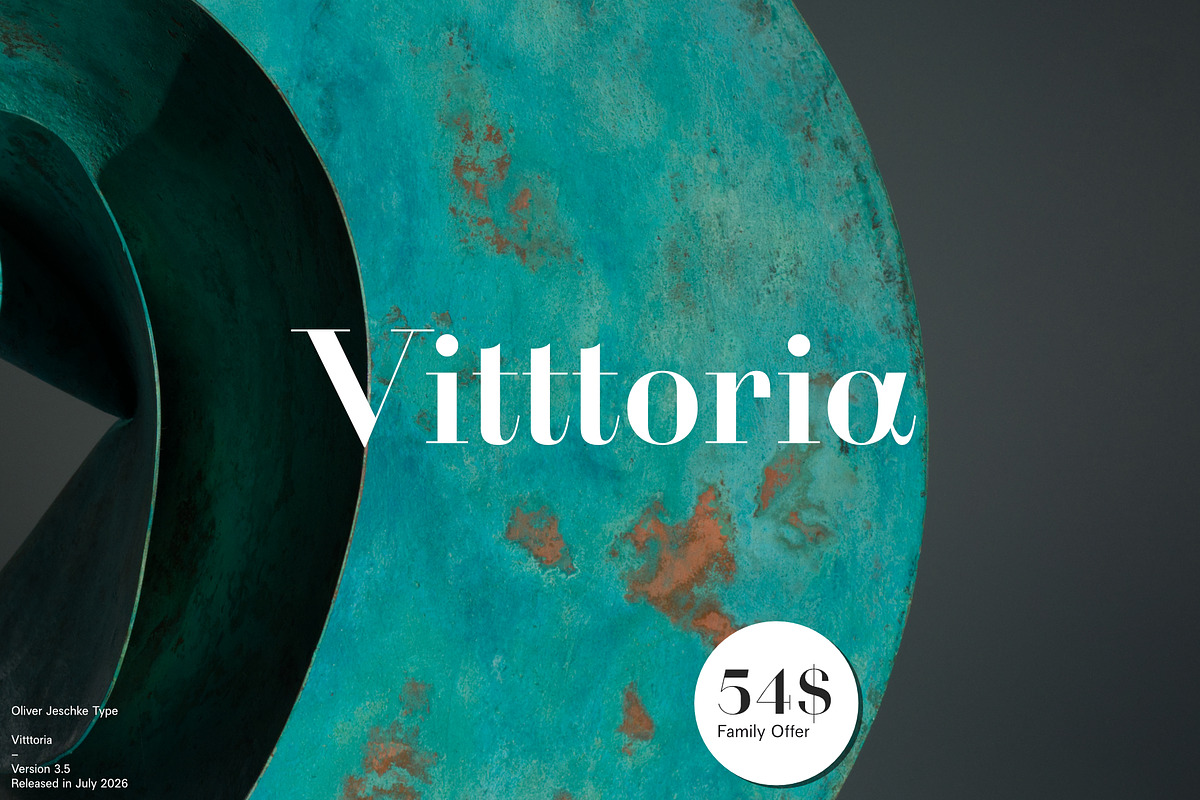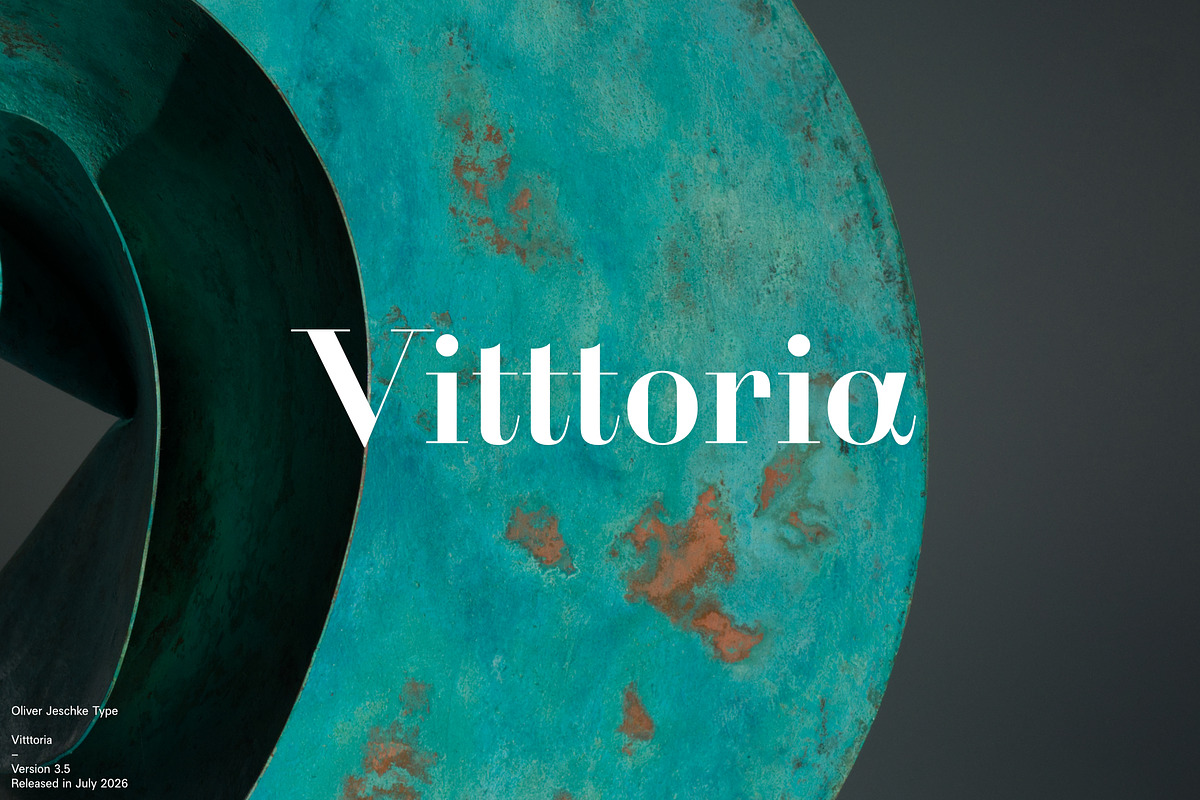
Vitttoria
Delicate details meet timeless forms in Vitttoria. Designed for editorial work, branding and luxury applications, it offers a graceful balance between tradition and modernity.